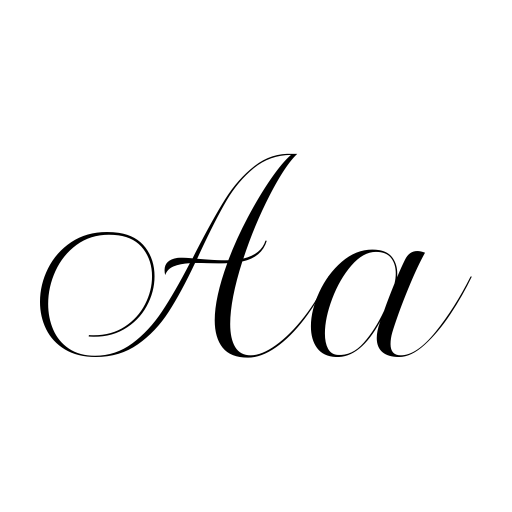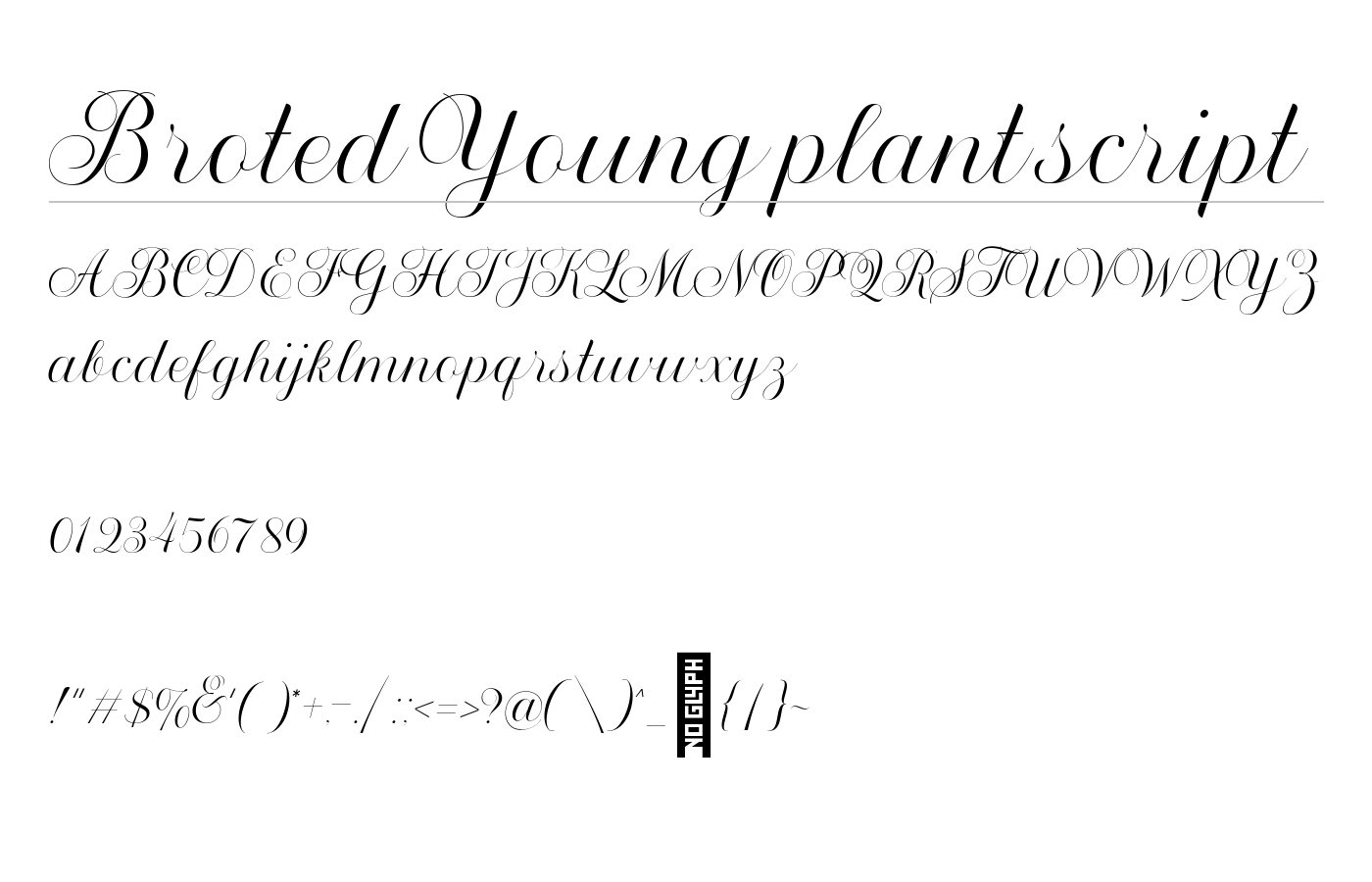
Broted Young Plant Script is an elegant, delicate script font characterized by its fine, flowing strokes and graceful swashes, perfect for adding a sophisticated and artistic touch. Its light weight and tall, slender letterforms with ornate uppercase swirls evoke a vintage, romantic feel, making it ideal for wedding invitations, luxury branding, and refined editorial designs. This font shines in contexts where a stylish, handwritten flair enhances the sense of elegance and personal charm.
About Broted Young plant script Font